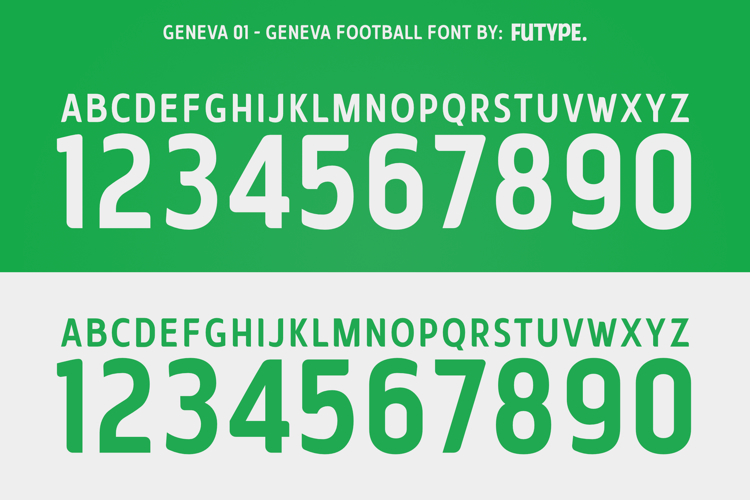
Geneva Football Typeface Font
Geneva is a font family with 7 different styles of numeral.
Geneva is made for football/soccer/other sports jersey name and number.
Even though it is made for sports, with a san serif typeface as a base character, Geneva also great for other design purpose.
Only the numerals differ in the fonts, the base character (alphabetic and punctuations) are all same.
Standard punctuation and multilingual characters are already included.